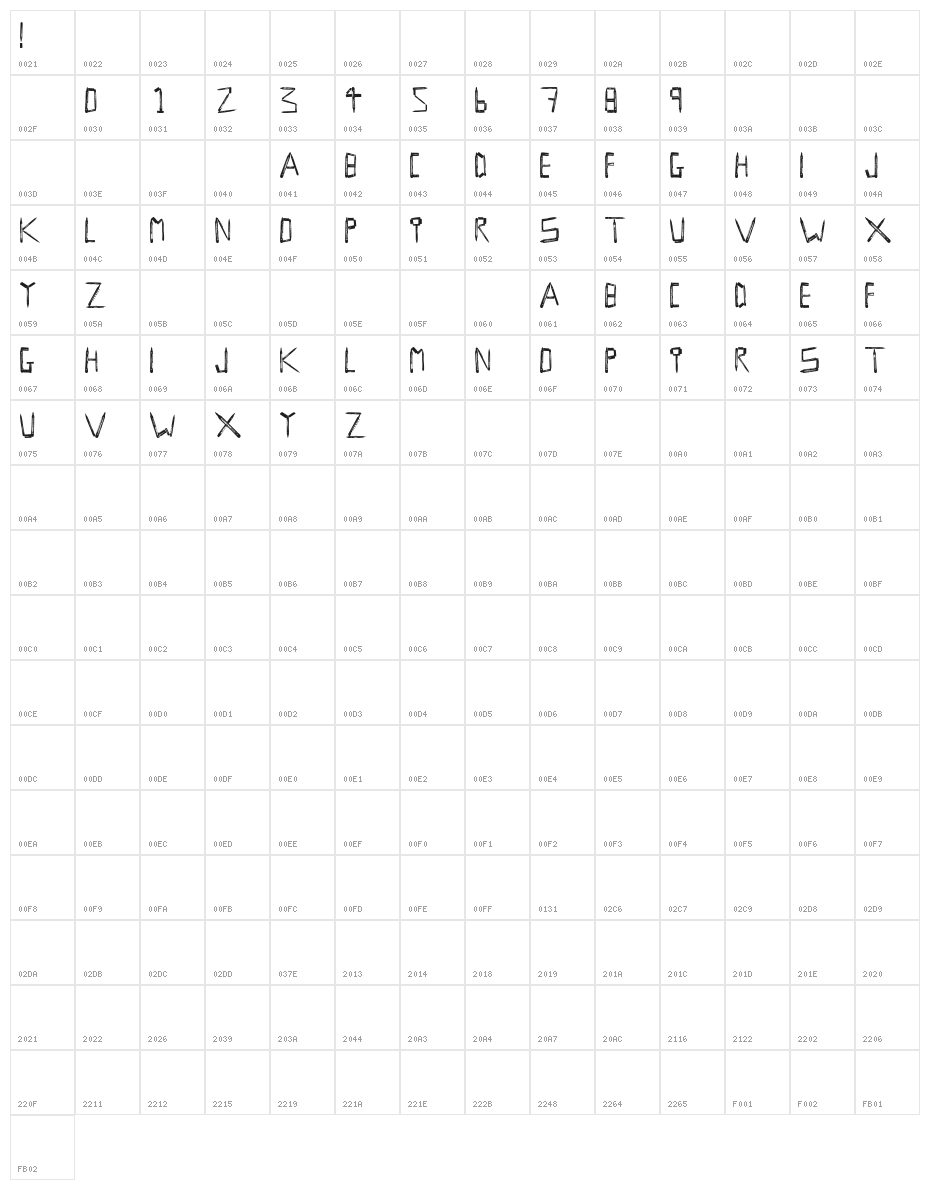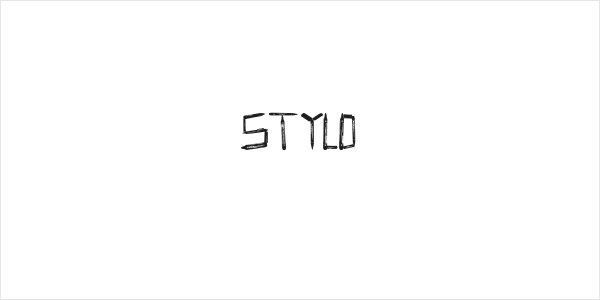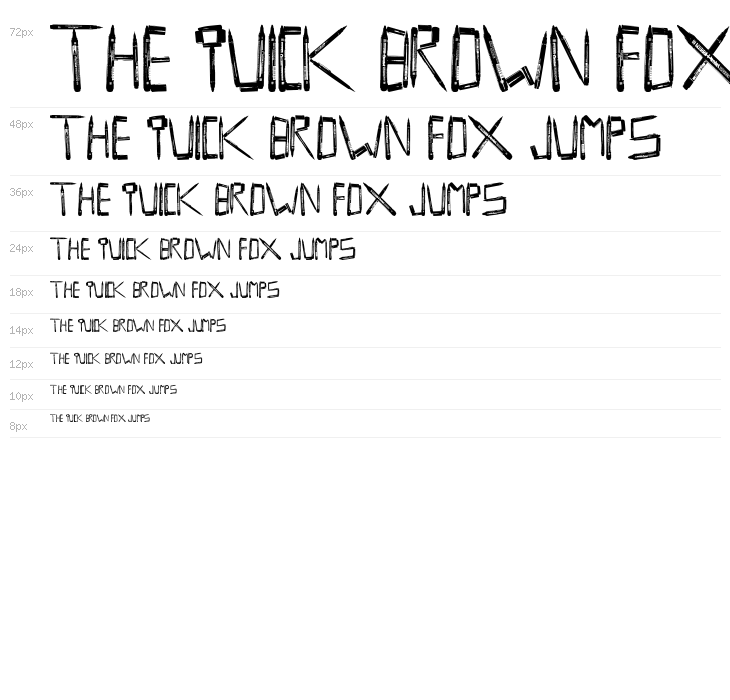
Stylo Font
Stylo Description
This font features a bold, hand-drawn style with a rough, textured appearance. The characters are uppercase and lowercase, with a consistent height and width that gives a uniform look. The strokes are uneven, adding a sense of dynamism and energy. The font has a slightly distressed look, reminiscent of graffiti or street art, which makes it stand out. The numbers and special characters follow the same design, maintaining the overall aesthetic. This font is ideal for projects that require a bold, artistic touch.